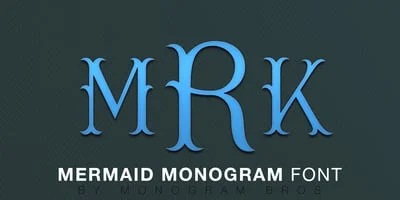
Mermaid Monogram Font
This enchanting typeface excels in personalized jewelry design, custom wedding monograms, luxury spa branding, ocean-themed resorts, boutique hotel signage, personalized stationery, custom gift packaging, and exclusive monogram services. Its mystical flowing character makes it perfect for projects requiring oceanic elegance and personalized sophistication.
Mermaid Monogram Font creates excitement through its aquatic enchantment that captures the mystical allure of underwater kingdoms and personalized luxury. The font's flowing curves and wave-like letterforms create an atmosphere of oceanic elegance that resonates with audiences seeking unique personalization and magical experiences. Its carefully crafted character variations deliver pearl-like readability while maintaining distinctive aquatic personality that reflects the mesmerizing beauty of sea creatures and the timeless appeal of personalized monogramming.
The Mermaid Monogram Font family features multiple oceanic variations including regular, ornate, shell-inspired, coral, and wave styles. Each family member maintains the distinctive mermaid aesthetic while offering different levels of aquatic sophistication for various personalization applications. This magical collection allows designers to create enchanting compositions that celebrate the full spectrum of oceanic beauty from gentle tide pools to majestic deep-sea mysteries.
The Mermaid Monogram Font provides designers with access to premium aquatic typography that brings authentic oceanic magic to any project. Its mystical character and personalized appeal make it ideal for creating memorable luxury brands and engaging personalized communications that inspire wonder. Whether developing spa identities, designing custom monogram materials, or crafting oceanic marketing campaigns, this font delivers the aquatic sophistication and magical authenticity essential for connecting with audiences who treasure personalization, embrace oceanic beauty, and seek the enchanting allure of underwater elegance.